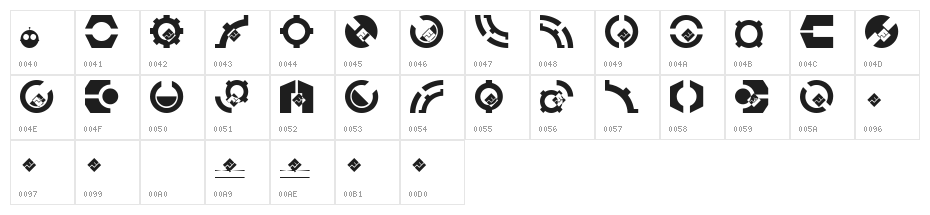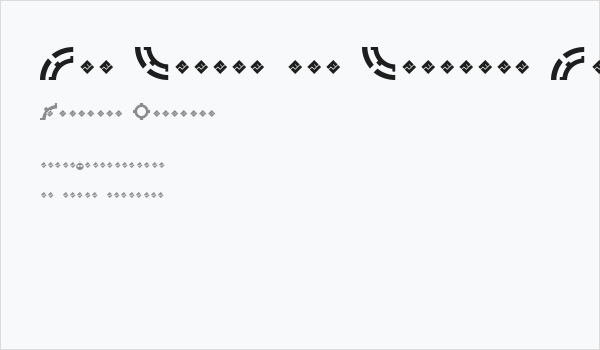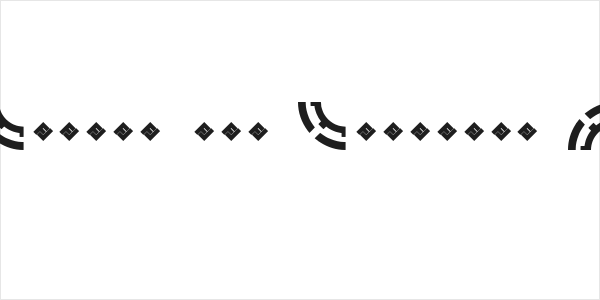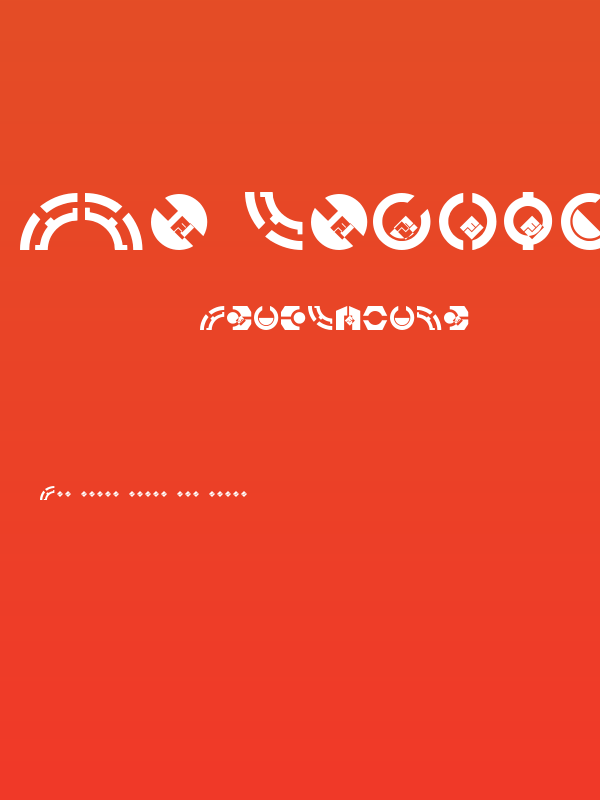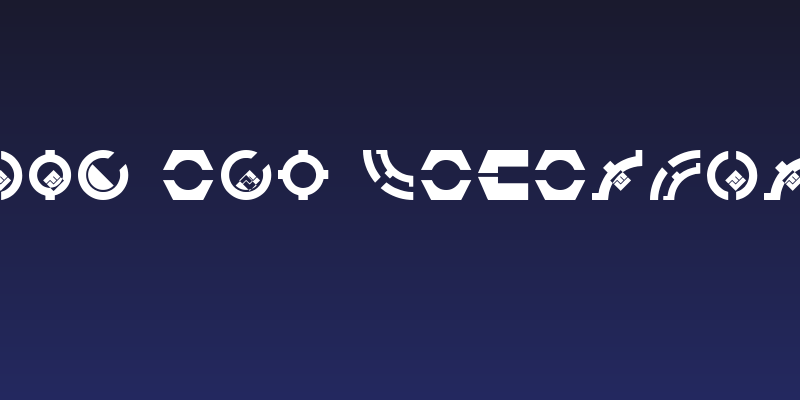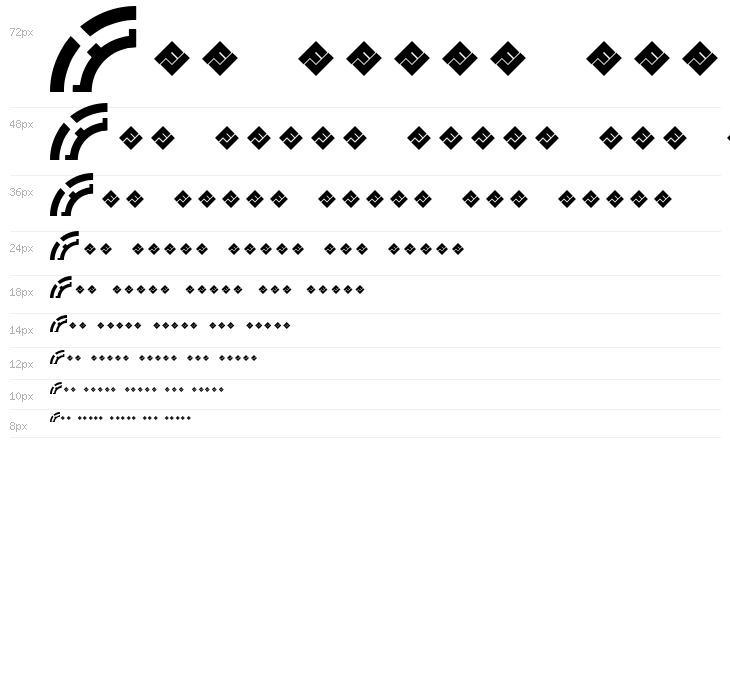
The Genius and Galactic Things Font
The Genius and Galactic Things Description
This design features a series of abstract, geometric shapes that resemble a futuristic or alien script. The characters are composed of bold, solid lines with circular and angular elements, creating a highly stylized and decorative appearance. The design is reminiscent of technological or sci-fi themes, with a strong emphasis on symmetry and balance. Each character is unique, yet they all share a cohesive visual language that suggests a form of communication or code. The overall aesthetic is striking and modern, making it suitable for creative and imaginative projects.
| Overall Style | Futuristic, Sci-Fi |
| Use Case | Logos, Titles, Decorative elements |
| Proposed Projects | Ideal for use in sci-fi themed games, movies, or books as an alien language or code. Could also be used in branding for tech companies or futuristic products. |